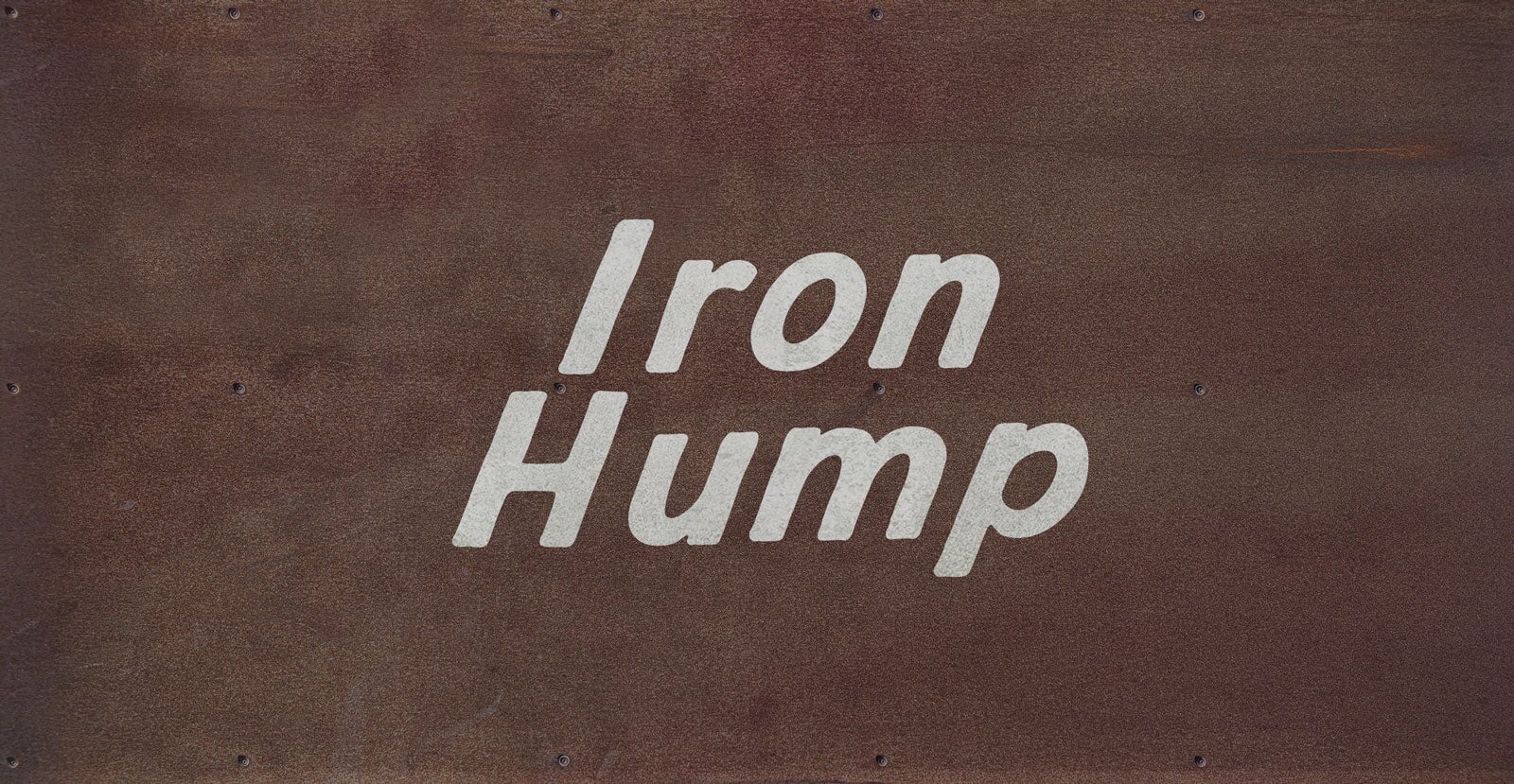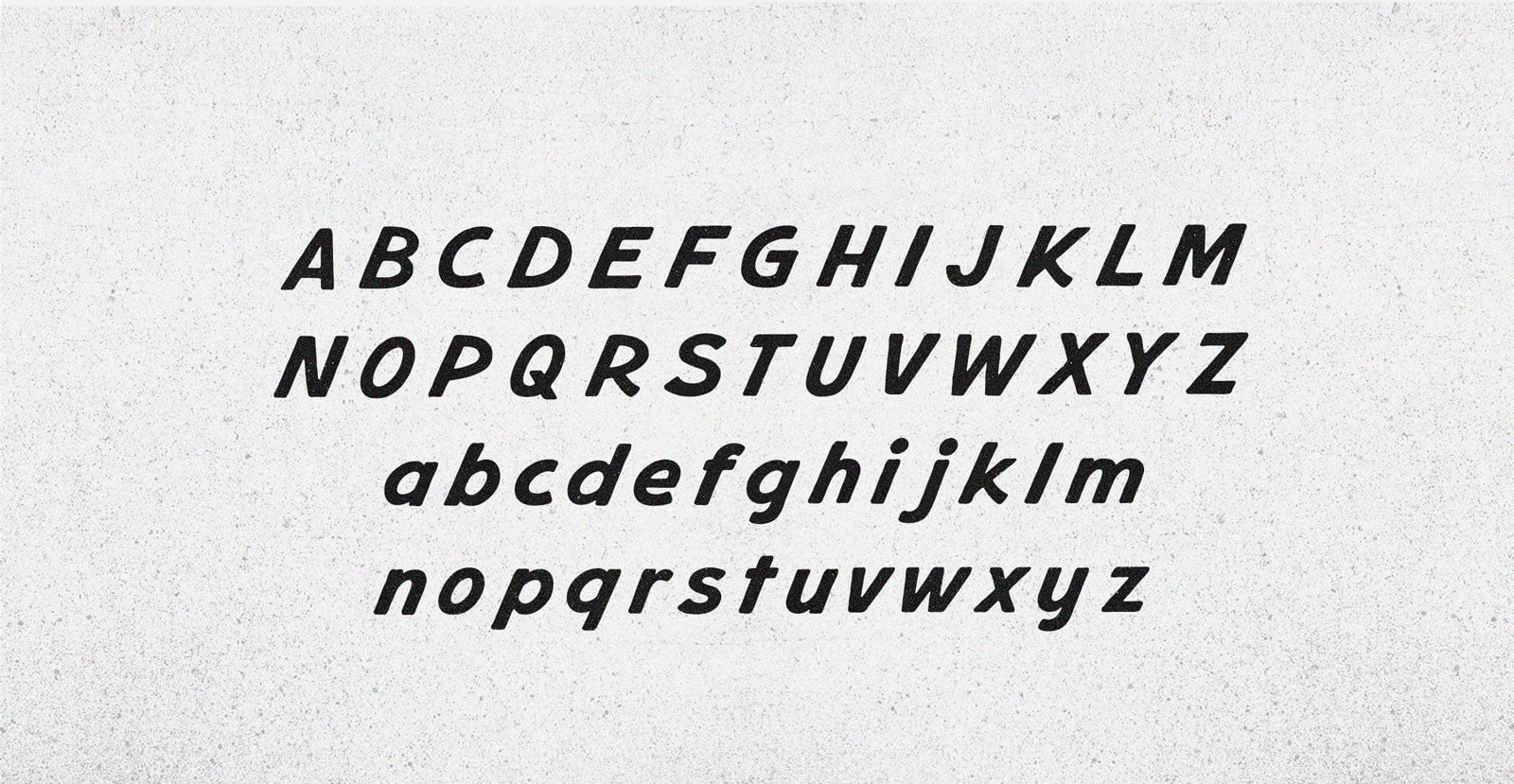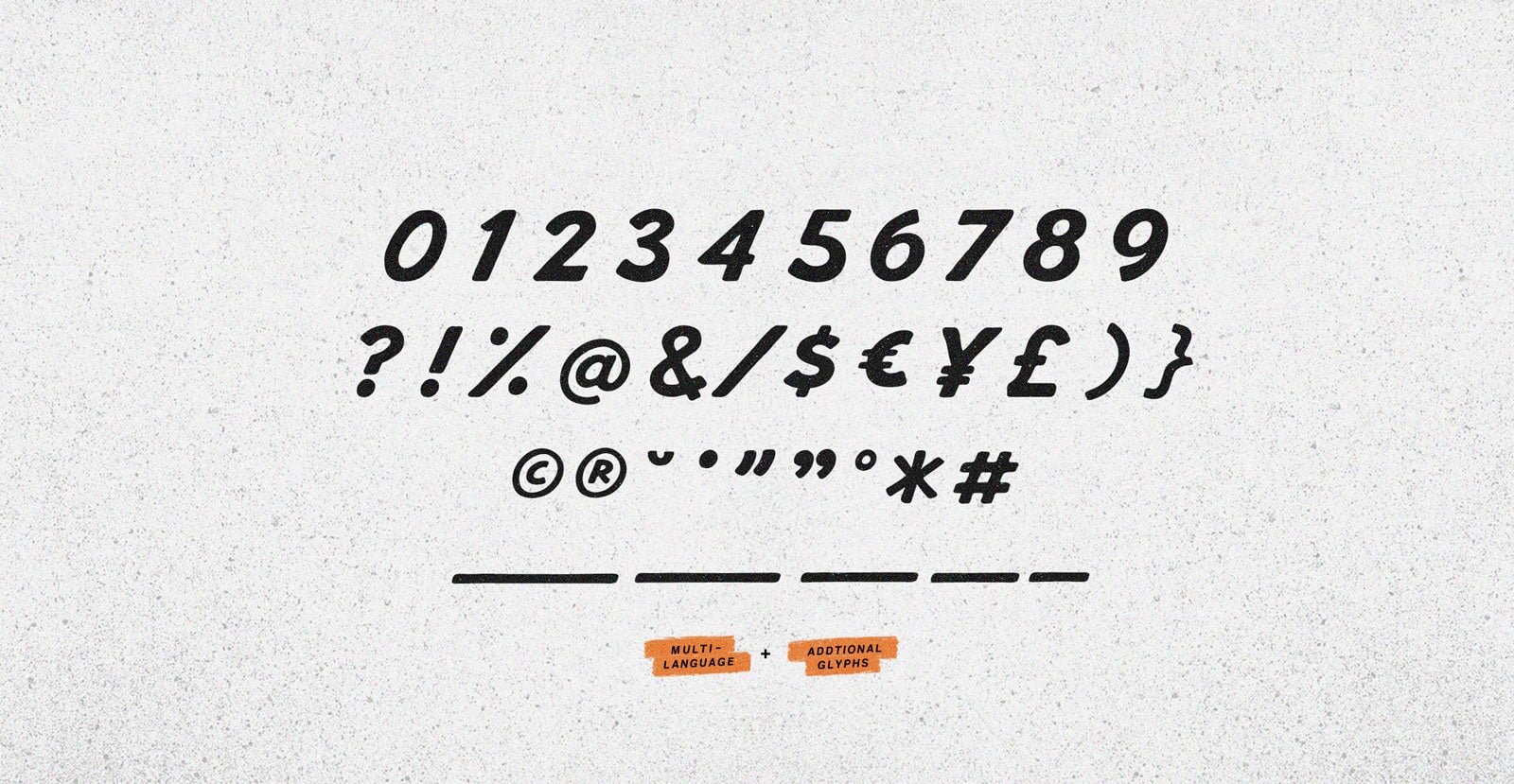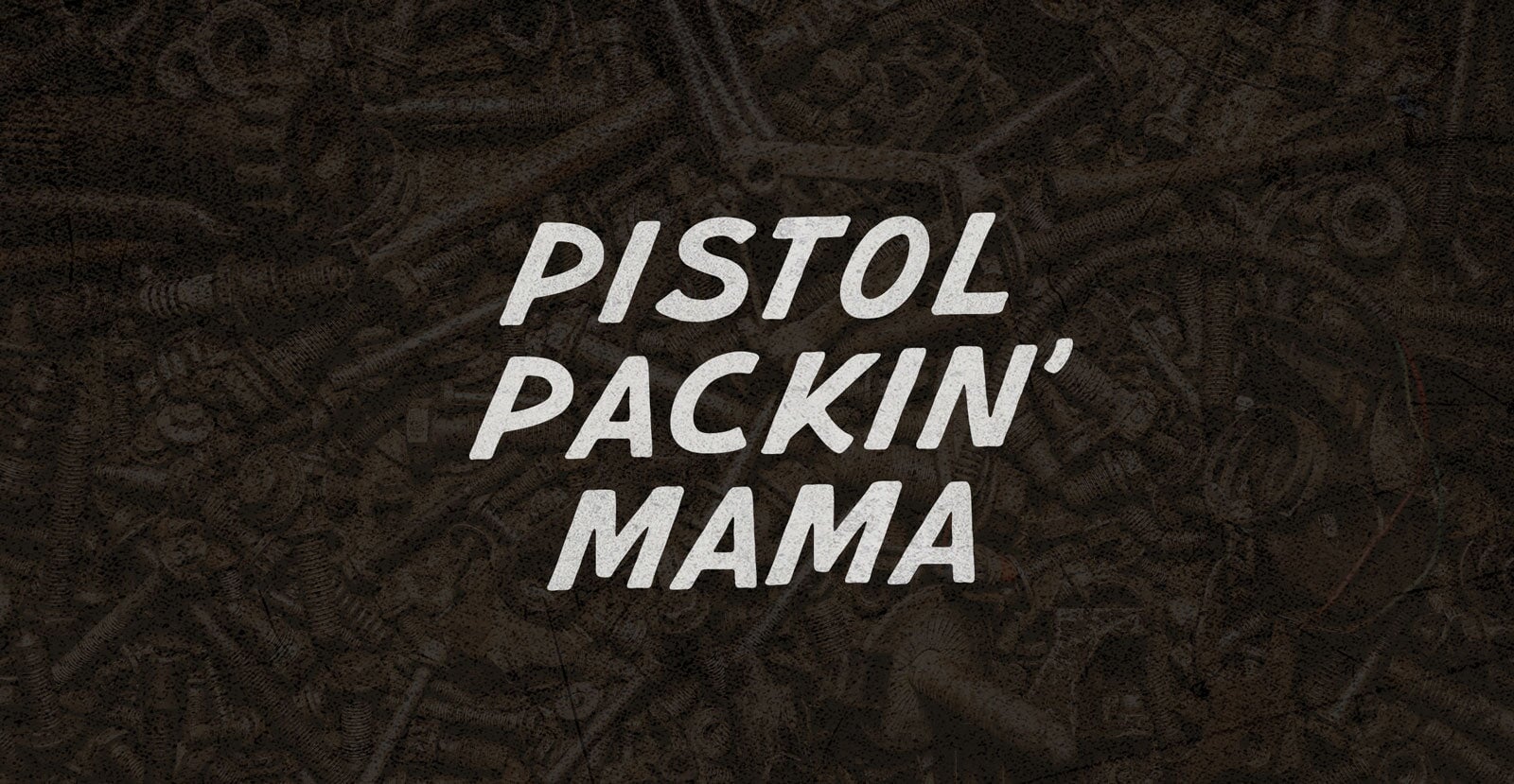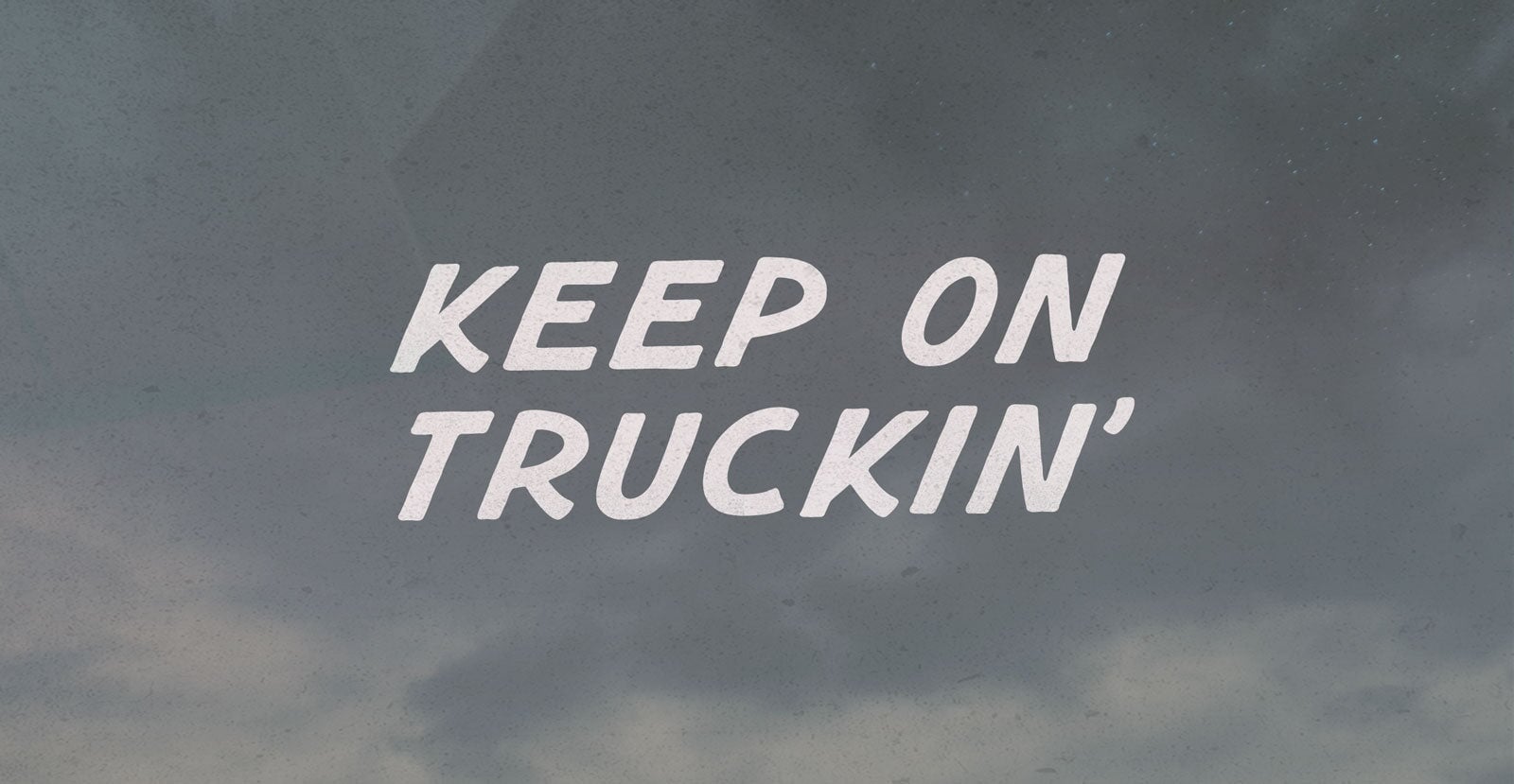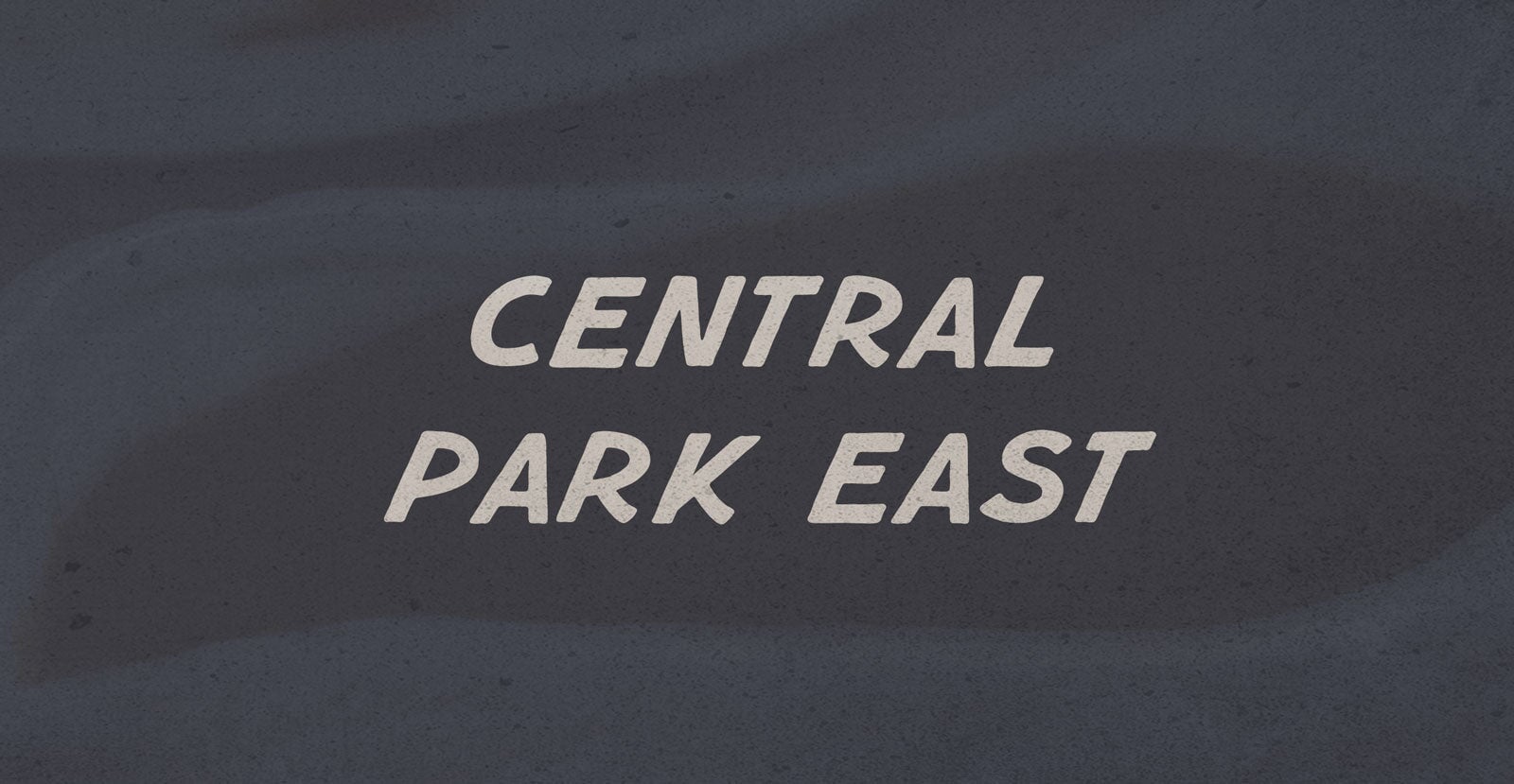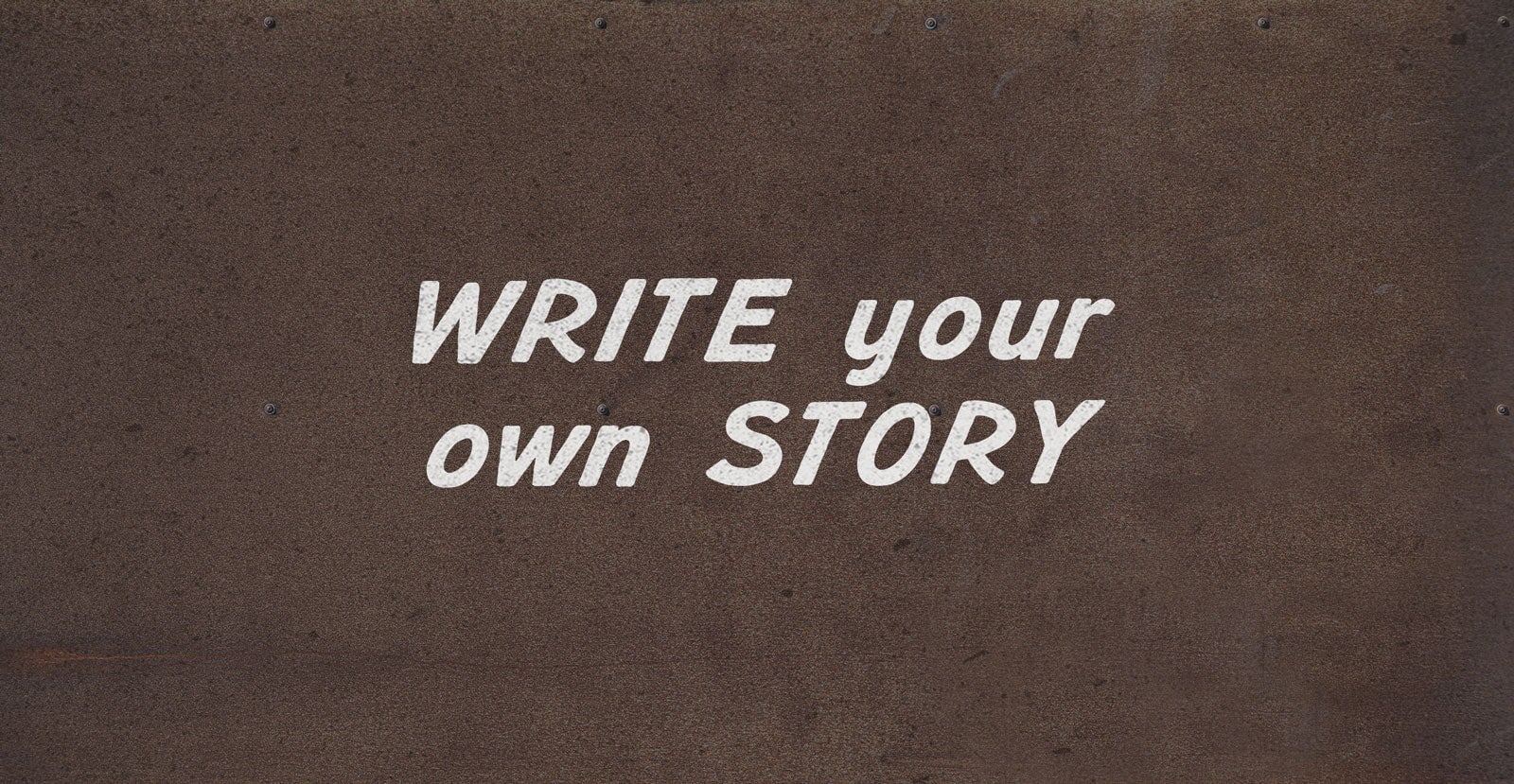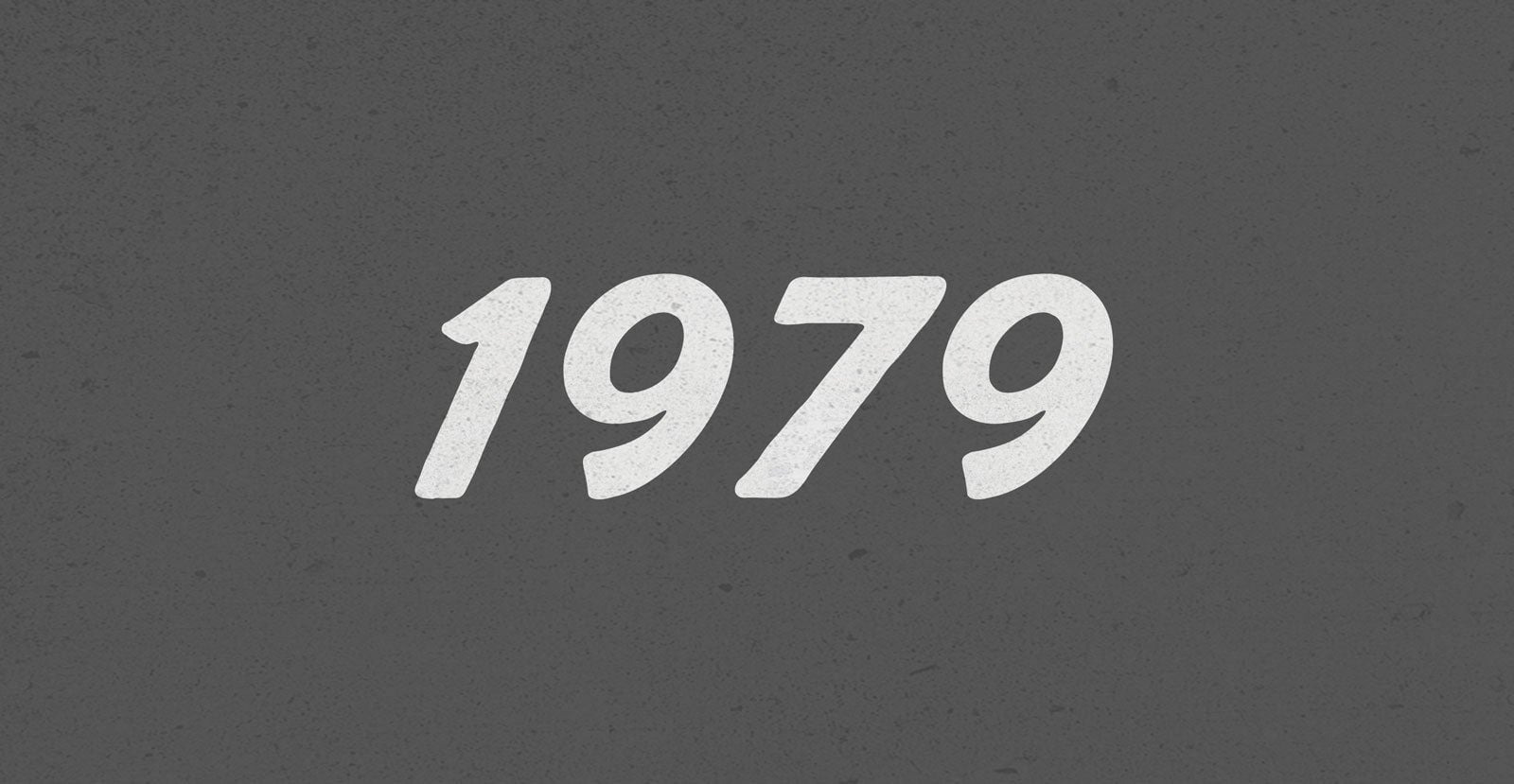
Iron Hump
Clunk like ferrous hip thrusts to a metal bear back can’t crack under the weight of every day plus a straw tucked inside a camel’s pack. Iron Hump—the hard place to place mossless rocks and rockabye babies because we’re rolling.